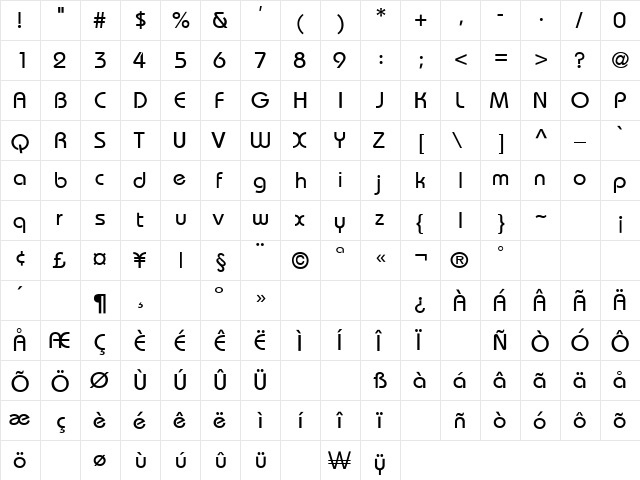
Bohemian Regular
Design Context for Bohemian Typeface
Bohemian is a composed and adaptable typeface that performs quietly and consistently across a wide range of design contexts.